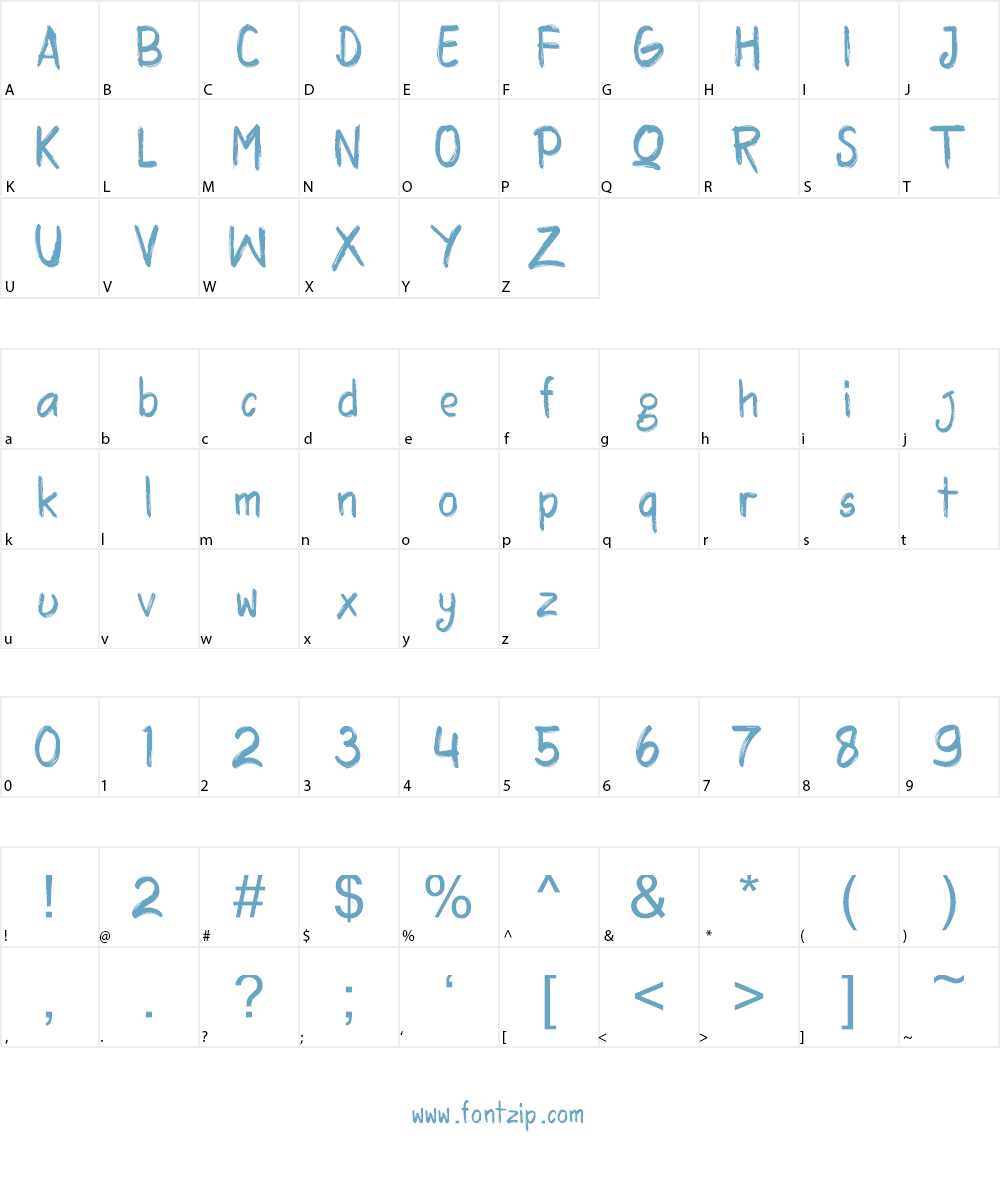
RASQUAKE is a brush font, useful to create is a supercharged, street-wise brush font bursting with energy.
With extra attention to quick strokes and sharp details, RASQUAKE is guaranteed to deliver an unapologetically loud & fast-paced message; ideal for logos, apparel, quotes,
or anything which needs a typographic turbo-boost.
D&K_Project